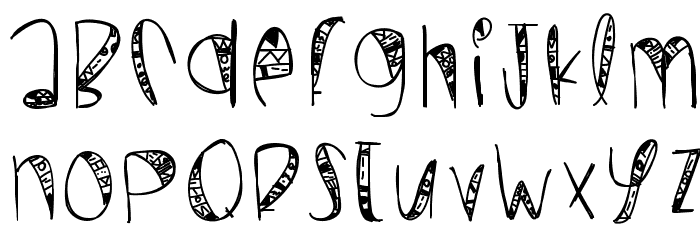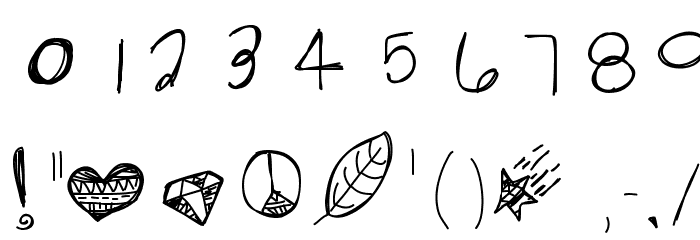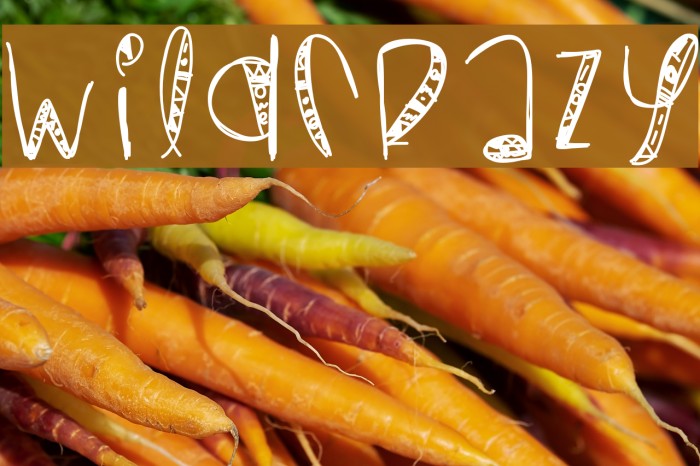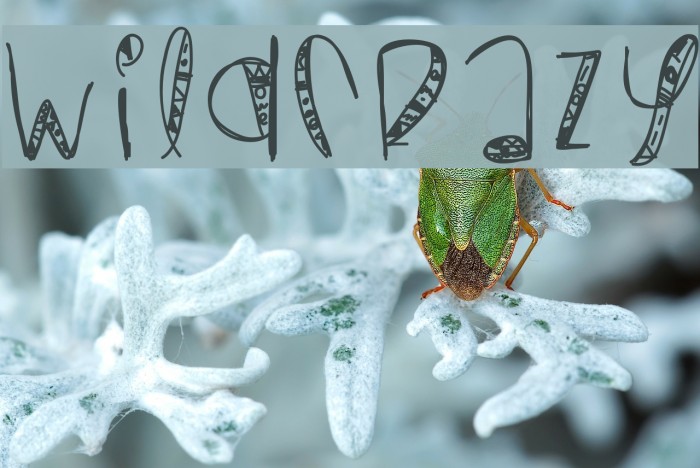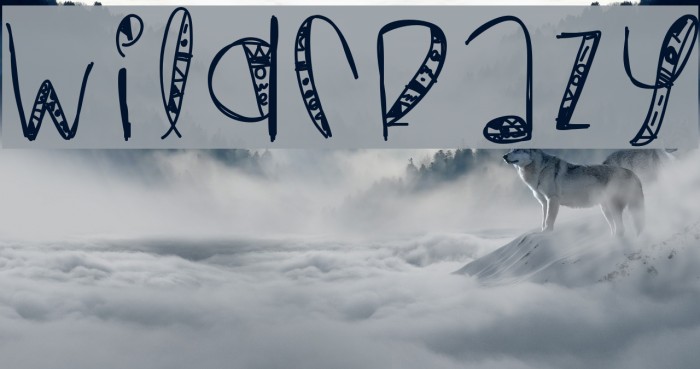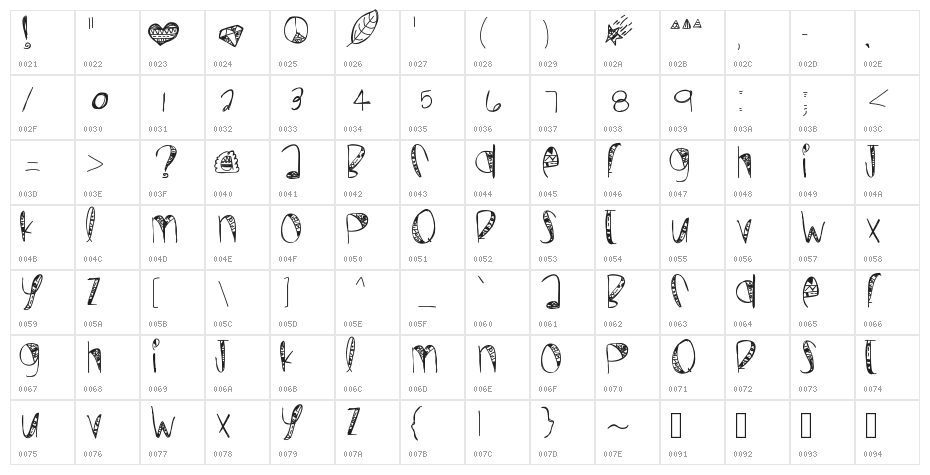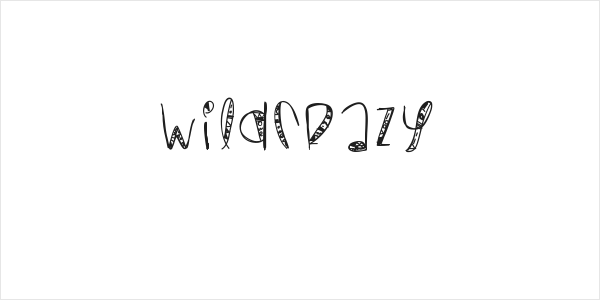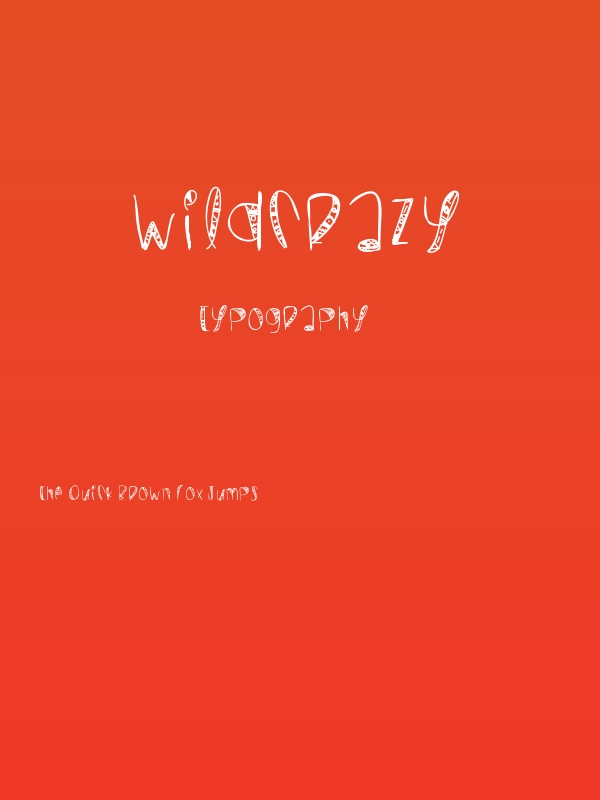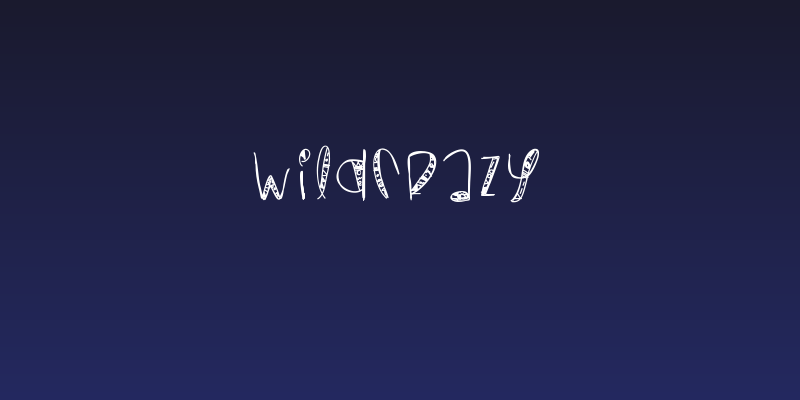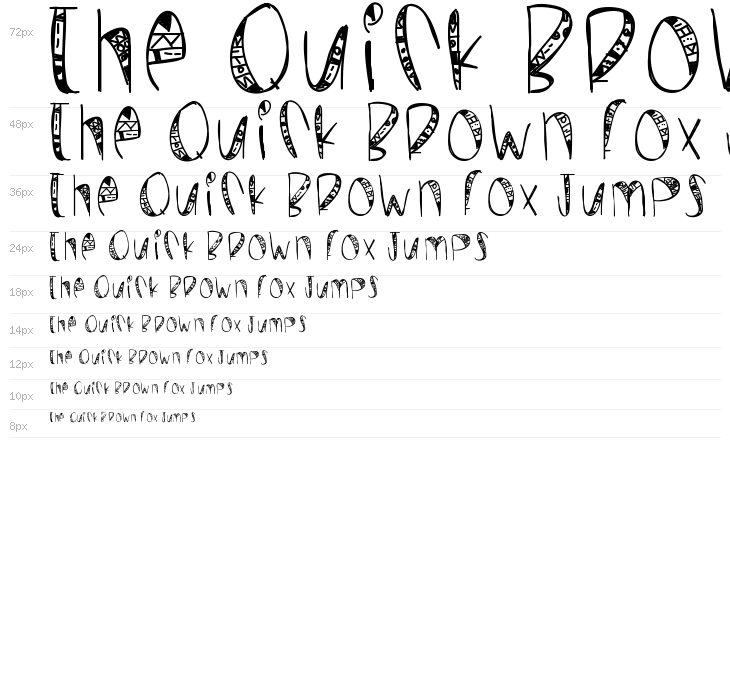
WildCrazy Font
This playful and whimsical font features a unique hand-drawn style with intricate patterns and doodles within each character. The letters have a lively, artistic flair, with varying line thicknesses and decorative elements that give it a quirky, creative appearance. The font includes both uppercase and lowercase letters, numbers, and a selection of special characters, each adorned with distinctive designs. Its irregular shapes and imaginative details make it stand out, perfect for projects that require a touch of fun and creativity.
A whimsical, hand-drawn font with intricate patterns and playful designs.
- Proposed Projects: Ideal for children's books, creative posters, greeting cards, and artistic branding projects.
- Overall Style: Playful, Artistic, Whimsical
- Use Case: Headlines, Artistic projects, Creative displays